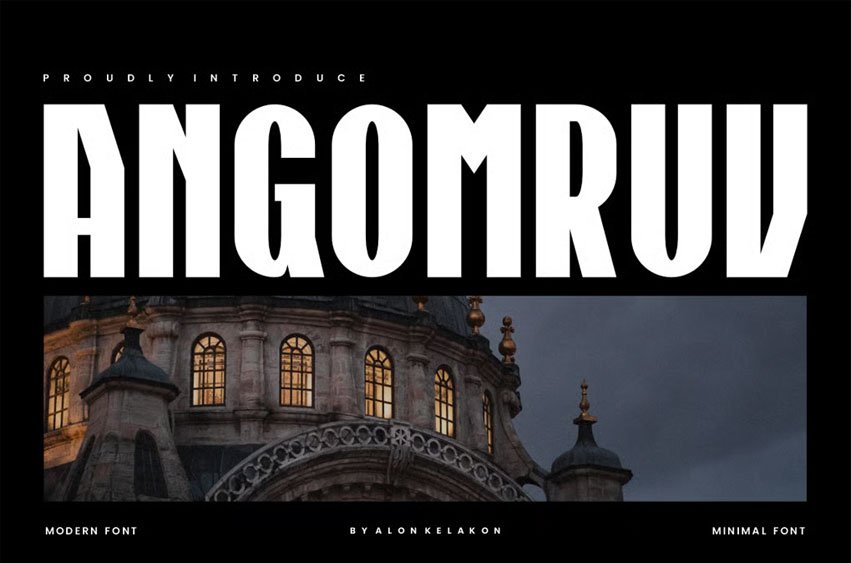
Angomruv Font Make a bold statement with ANGOMRUU, a modern and minimalist display font designed for maximum impact. Its clean, wide letterforms and subtle geometric details give it a strong, architectural presence that is both confident and sophisticated.
ANGOMRUU is the perfect choice for projects that demand elegance and power. Whether for a high-end fashion brand, an architectural portfolio, or a sleek tech startup, this typeface delivers a premium and unforgettable look. Its distinct style is a showstopper for headlines, titles, and branding that aims to be simple yet striking.
Key Features
- Bold & Minimalist Style: The clean, wide shapes are perfect for contemporary, minimalist design.
- Unique Geometric Details: Subtle cut-outs add a touch of personality and make the font stand out from the crowd.
- Perfect for Headlines: Designed to be a showstopper at large sizes, ideal for titles, posters, and web headers.
- Full Character Set: Includes uppercase, lowercase, numerals, and punctuation for complete creative freedom.
- Versatile Use: Suitable for branding, editorial design, web design, luxury goods, and more.